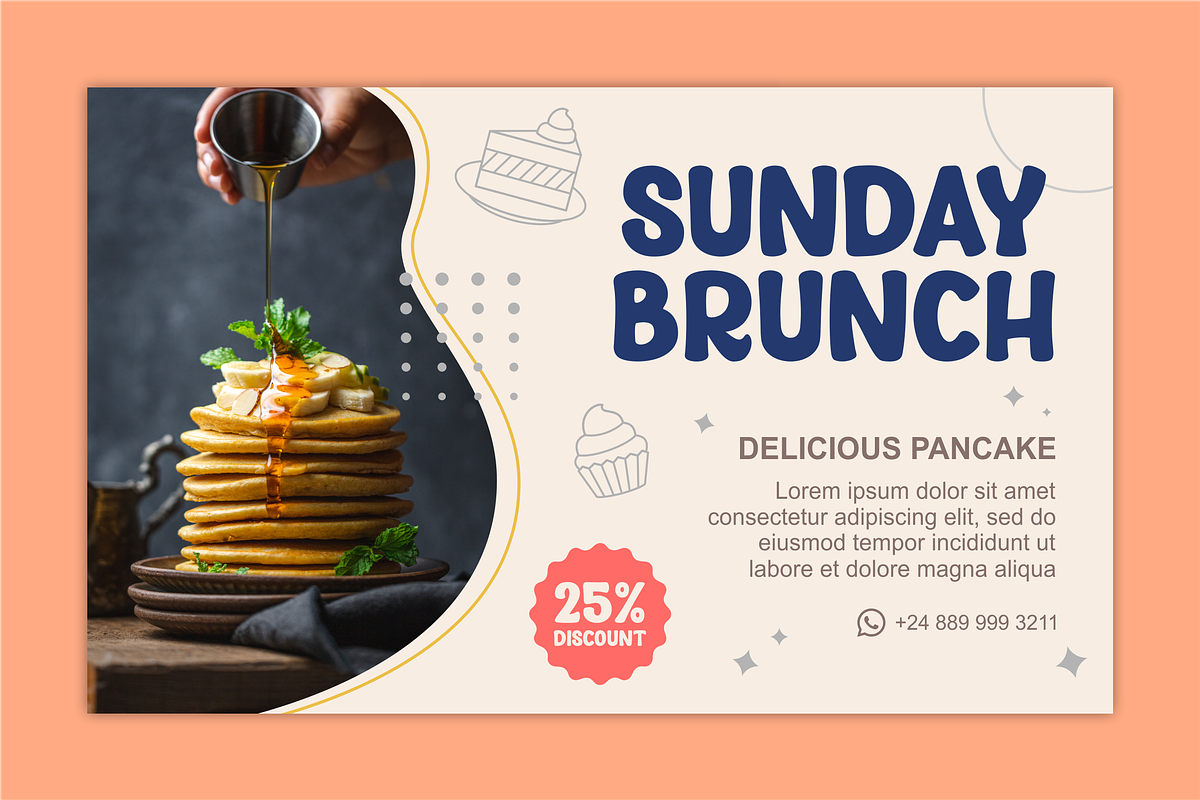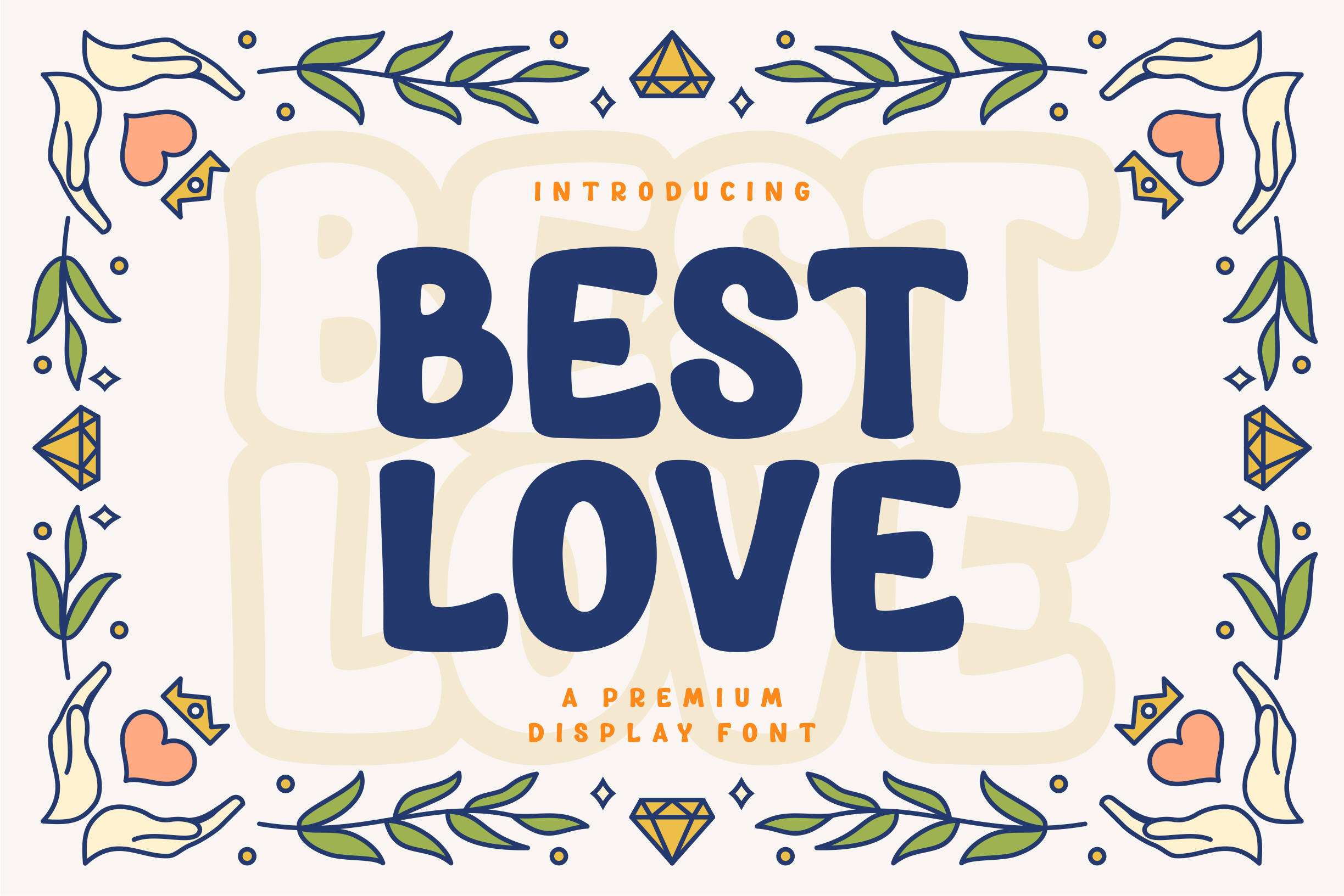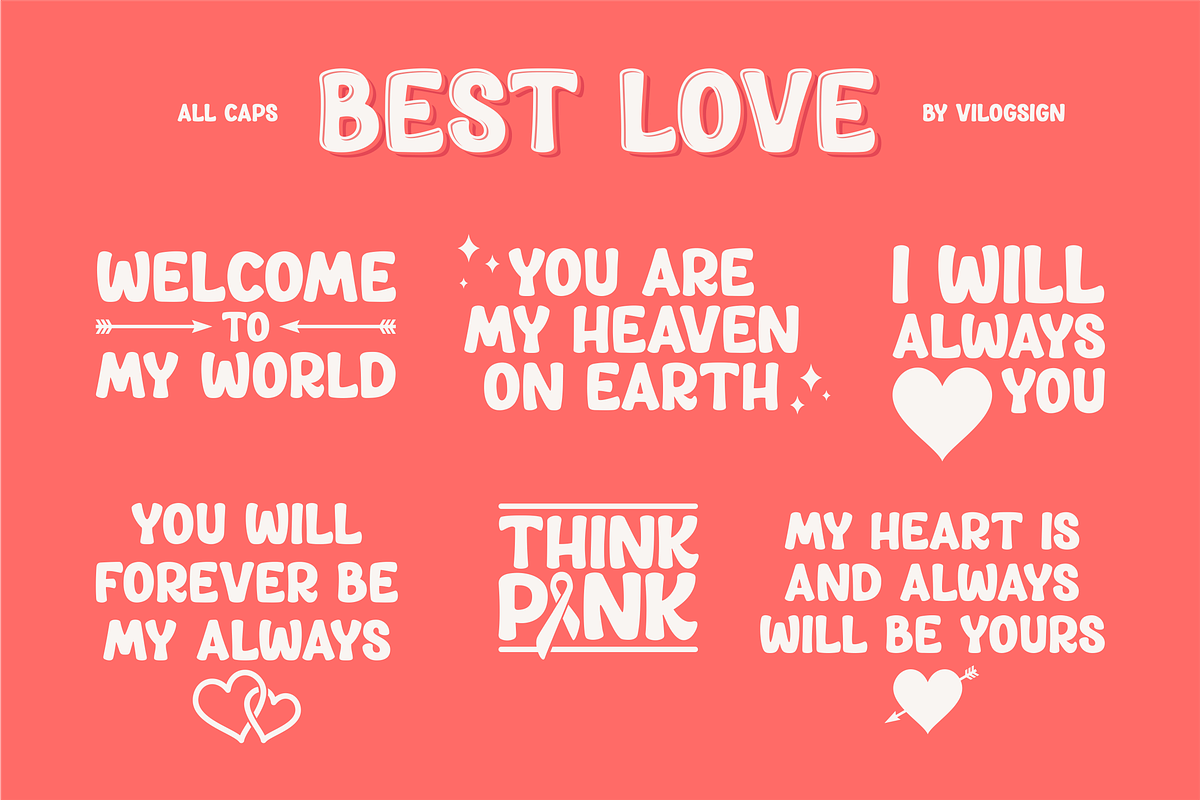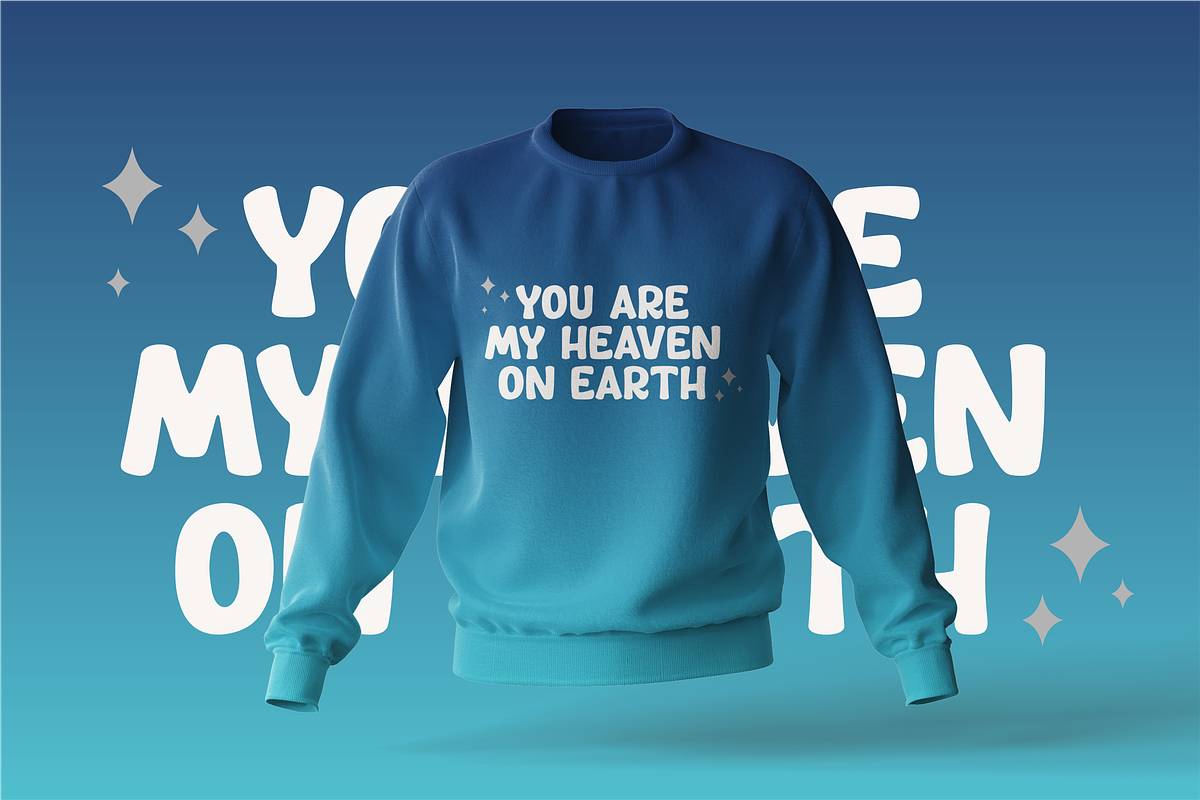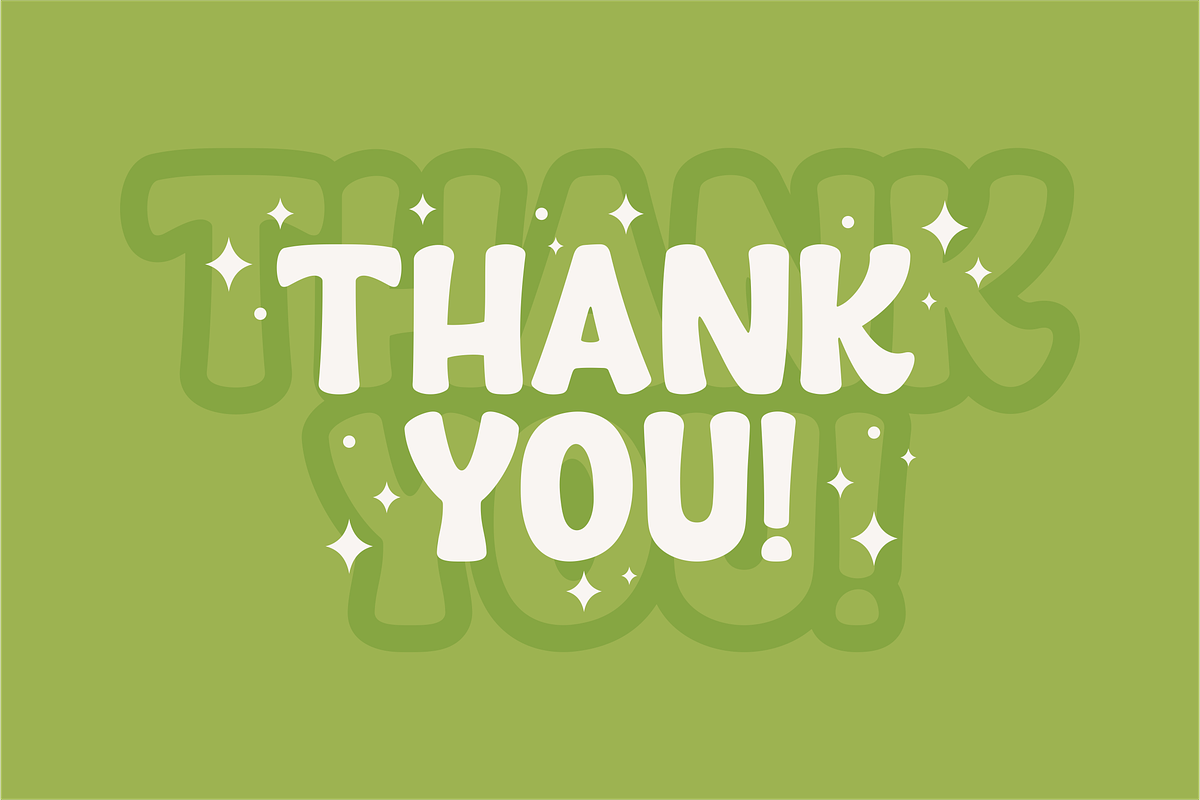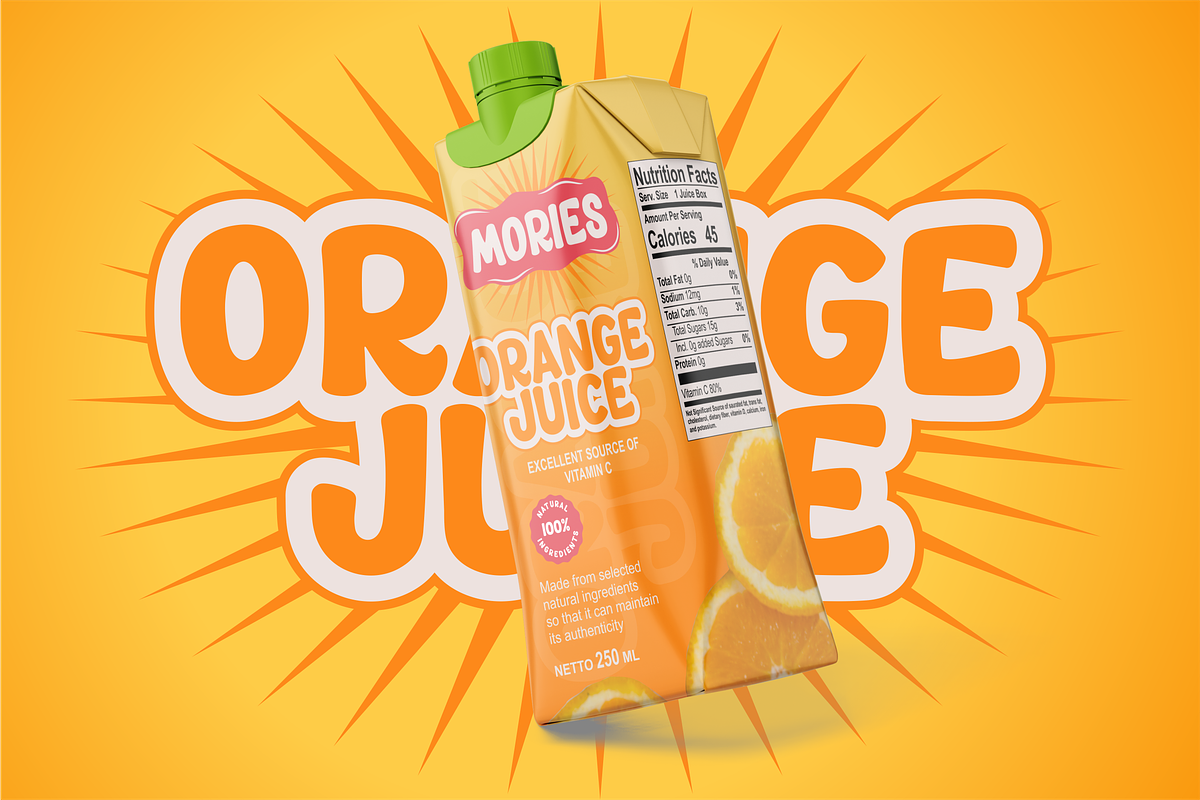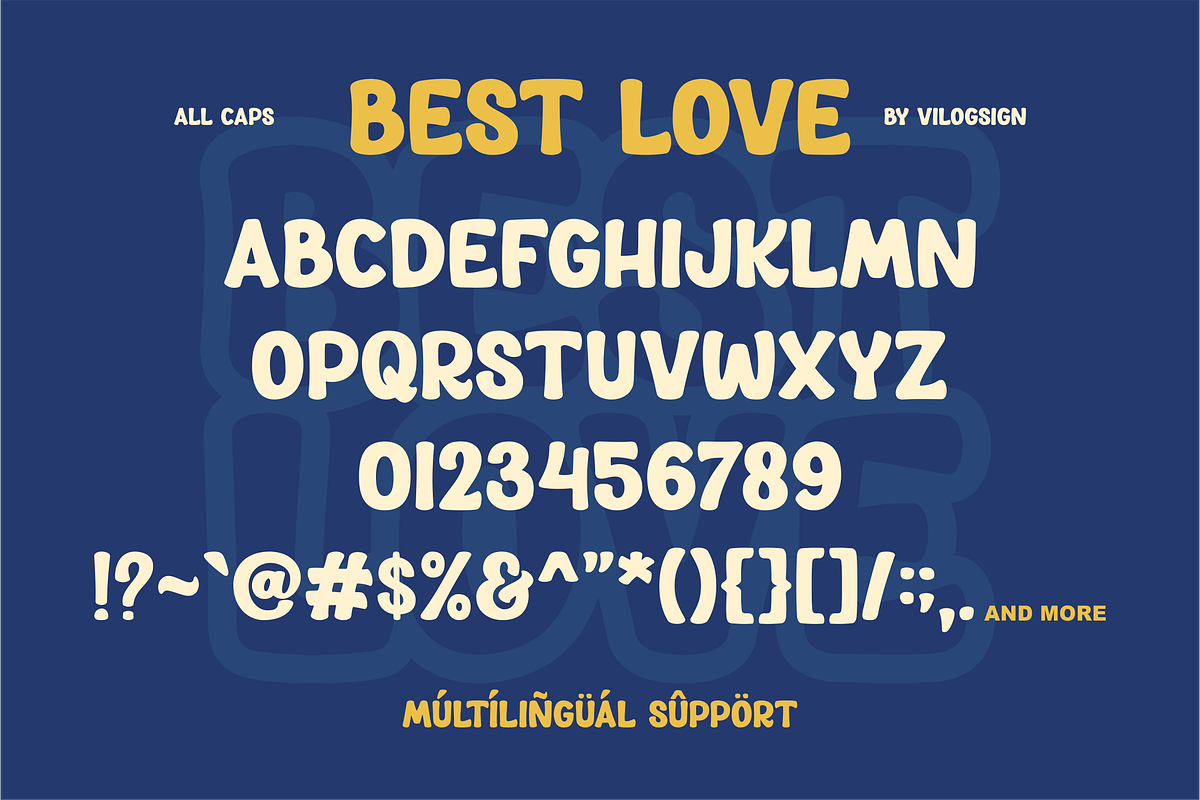
Best Love a Fun Display Font
Hi,,, Introducing "Best Love" a Display Font!!!
Best Love font is a bold font which is can be used in happy and fun concept. This font is very good with multilingual support to complete your need. Very suitable to make a playful branding, Logo, Poster, Film, magazine, quotes, packaging, and other.